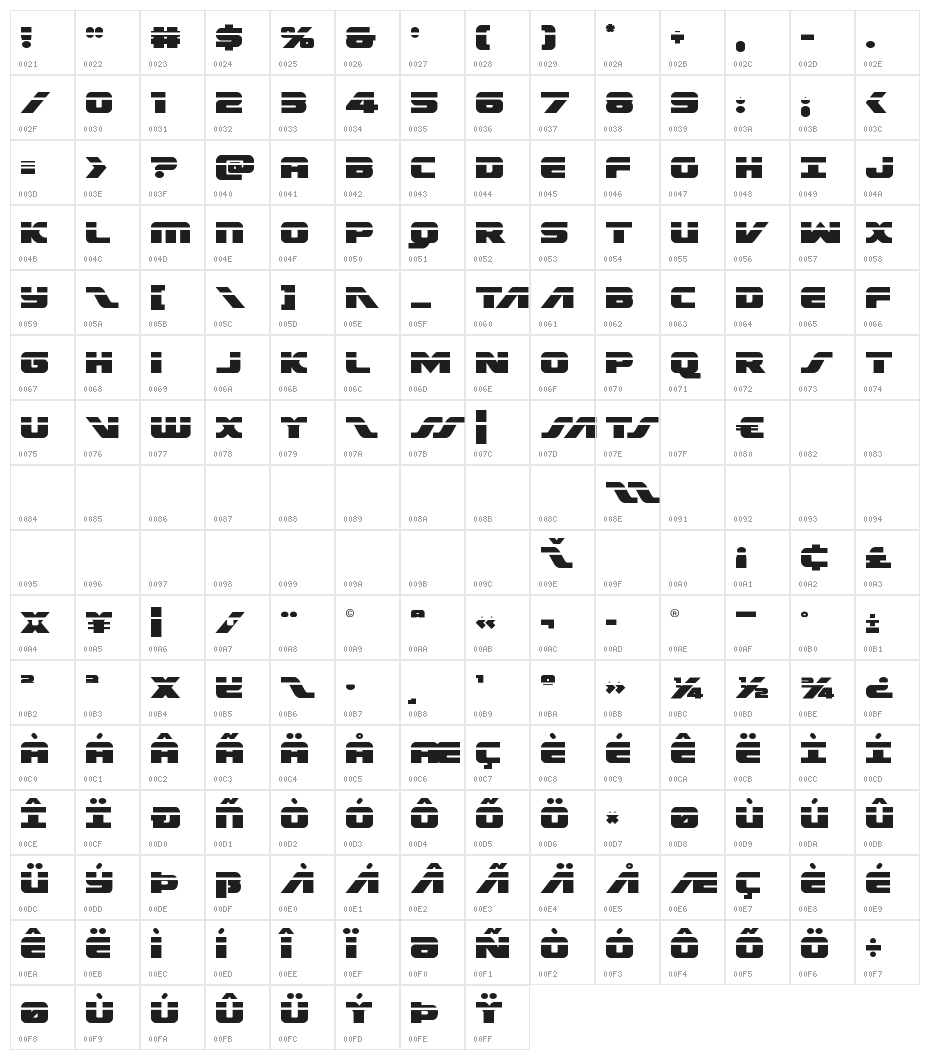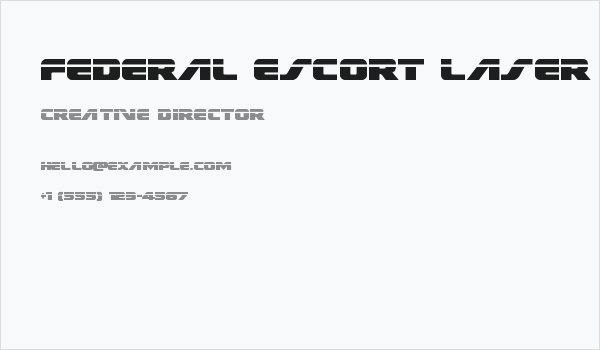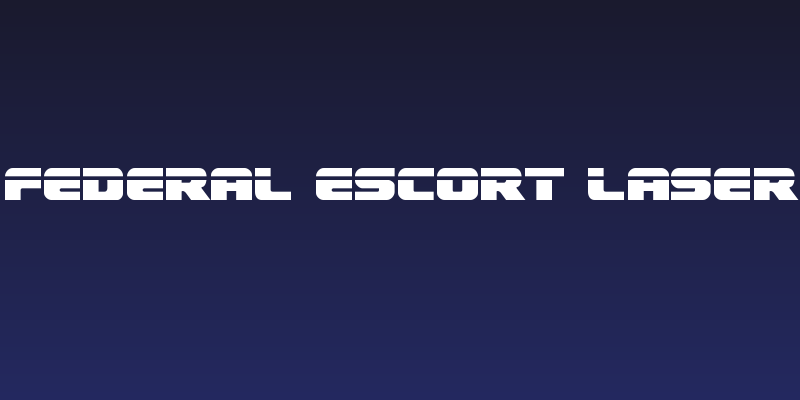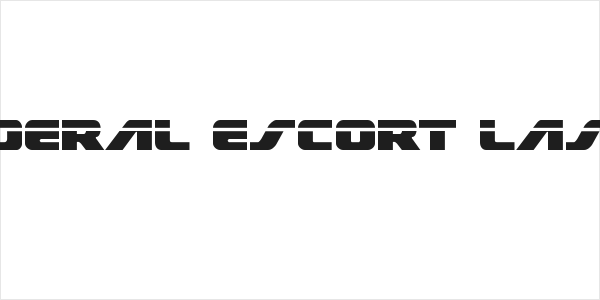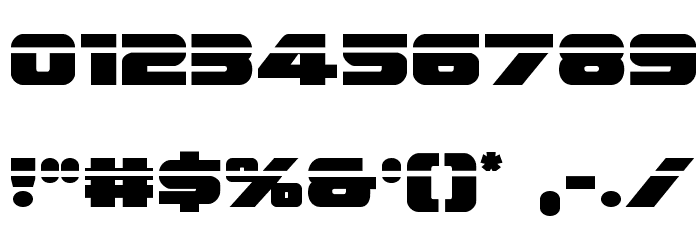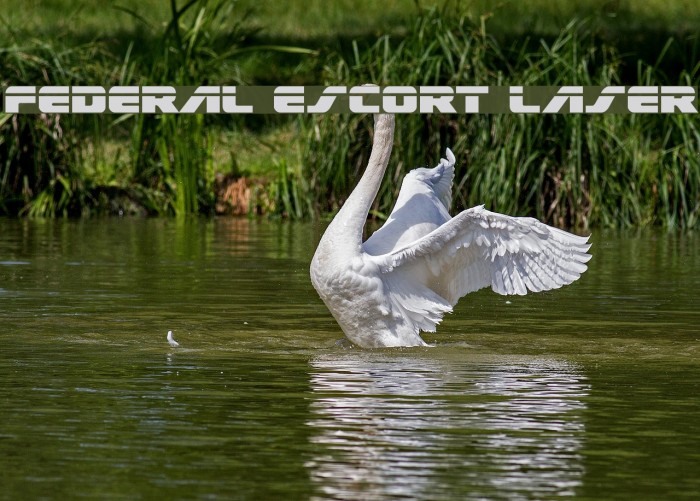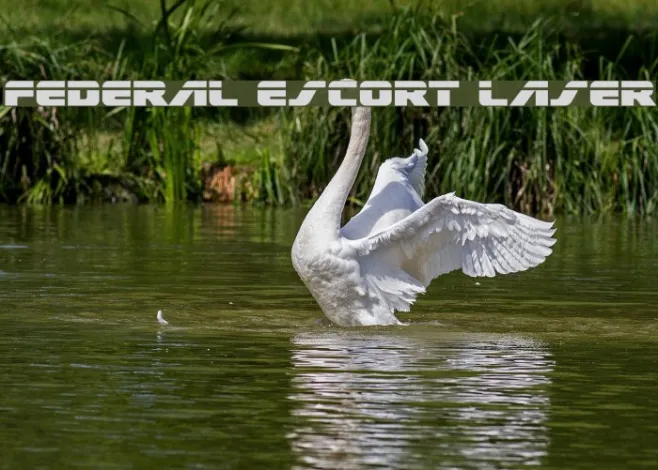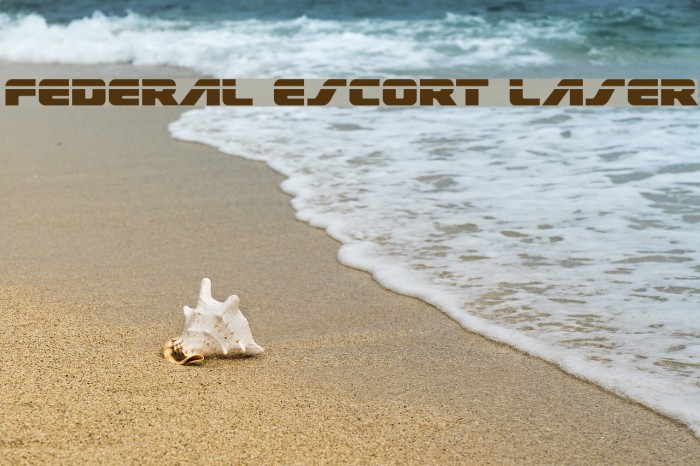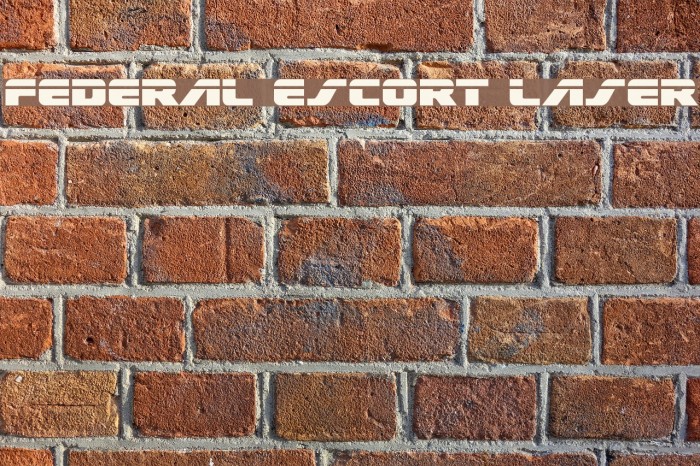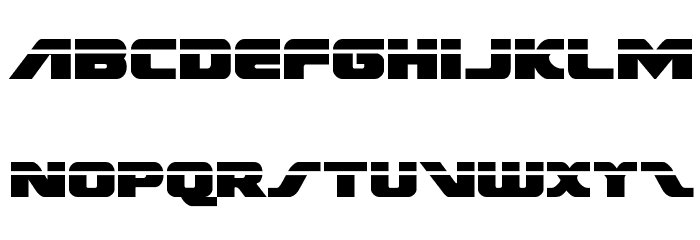
Federal Escort Laser Font
Federal Escort Laser Description
This font features a bold, futuristic design with a strong geometric influence. The characters are constructed with thick, block-like shapes that convey a sense of strength and modernity. The uppercase letters are particularly striking, with sharp angles and a consistent width that creates a uniform appearance. The numbers and special characters maintain this bold aesthetic, ensuring a cohesive look across all glyphs. The font's style is reminiscent of digital or sci-fi themes, making it ideal for projects that require a modern and impactful visual presence.
| Proposed Projects | Ideal for sci-fi themed projects, technology branding, video game titles, and futuristic posters. |